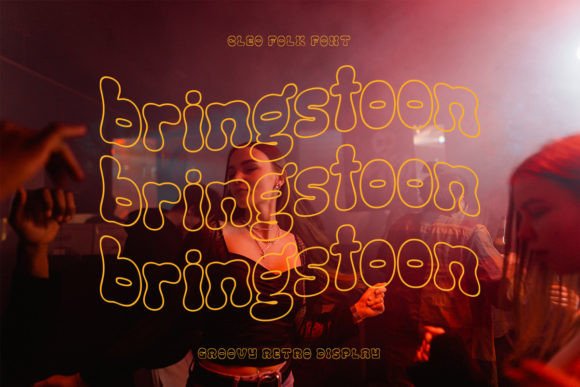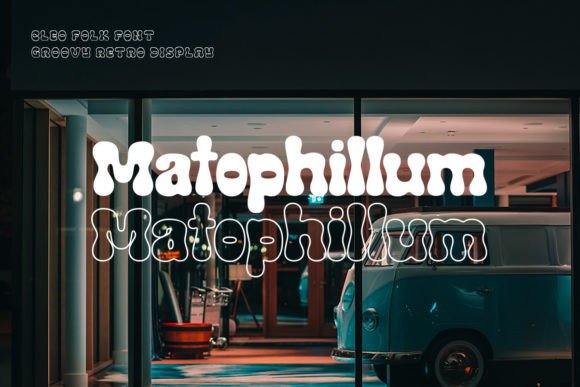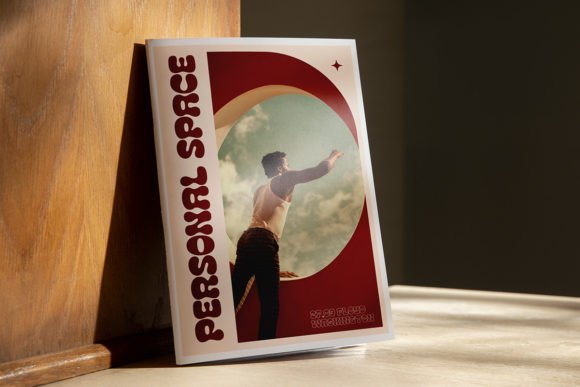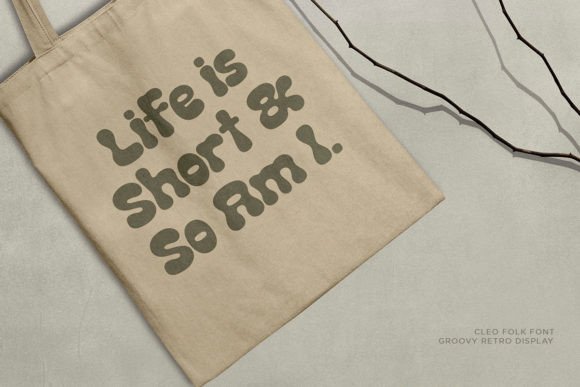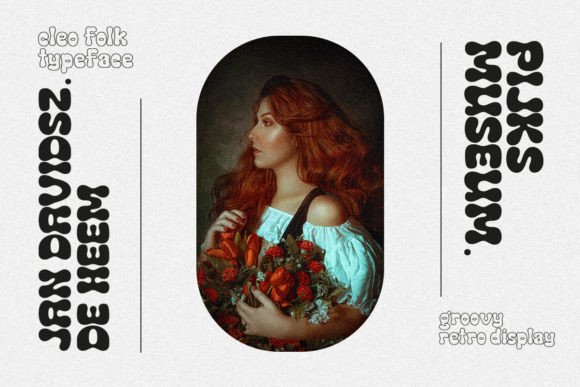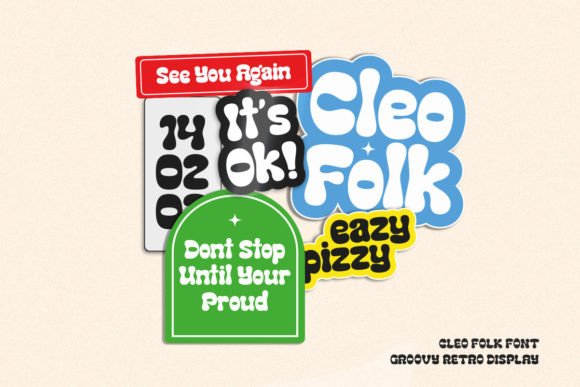
Cleo Folk Font: The Groovy Retro Display Font You Need for Your Designs
Are you tired of using the same old fonts in your designs? Do you want to add a touch of uniqueness and personality to your projects? Look no further than Cleo Folk, a groovy retro display font that’s perfect for designers and crafters alike. In this article, we’ll dive into the world of Cleo Folk and explore its features, benefits, and uses.
What is Cleo Folk Font?
Cleo Folk is a display font that embodies the spirit of the retro era. Its natural and unique style makes it incredibly fitting for a wide range of designs, from vintage-inspired posters to modern digital graphics. The font’s groovy vibe is sure to add a touch of personality to any project, making it stand out from the crowd.
Key Features of Cleo Folk Font
- Unique and Quirky Style: Cleo Folk’s distinctive style is sure to grab attention and add a touch of whimsy to your designs.
- Retro-Inspired: The font’s retro vibe makes it perfect for designs that require a vintage or nostalgic feel.
- Natural and Earthy: Cleo Folk’s natural style makes it suitable for designs that require an earthy or organic feel.
- Highly Versatile: The font’s versatility makes it suitable for a wide range of designs, from digital graphics to print materials.
Benefits of Using Cleo Folk Font
So, why should you choose Cleo Folk for your designs? Here are just a few benefits of using this amazing font:
- Adds Personality to Your Designs: Cleo Folk’s unique style is sure to add a touch of personality to your designs, making them stand out from the crowd.
- Perfect for Creative Projects: The font’s quirky style makes it perfect for creative projects, such as posters, flyers, and brochures.
- Easy to Read: Despite its unique style, Cleo Folk is easy to read, making it suitable for designs that require a clear and concise message.
- Customizable: The font’s versatility makes it easy to customize, allowing you to experiment with different colors, textures, and styles.
Uses of Cleo Folk Font
So, what can you use Cleo Folk for? The possibilities are endless! Here are just a few ideas to get you started:
- Posters and Flyers: Cleo Folk is perfect for creating eye-catching posters and flyers that require a unique and attention-grabbing style.
- Digital Graphics: The font’s versatility makes it suitable for digital graphics, such as social media posts, blog headers, and website titles.
- Branding and Packaging: Cleo Folk’s quirky style makes it perfect for branding and packaging designs that require a unique and memorable style.
- Crafting and DIY Projects: The font’s natural and earthy style makes it suitable for crafting and DIY projects, such as handmade cards, gift tags, and scrapbooking.
Tips for Using Cleo Folk Font
Here are a few tips for using Cleo Folk in your designs:
- Experiment with Colors and Textures: Cleo Folk’s versatility makes it easy to experiment with different colors and textures, so don’t be afraid to try new things!
- Pair with Other Fonts: The font’s unique style makes it perfect for pairing with other fonts, creating a unique and visually appealing combination.
- Use for Headlines and Titles: Cleo Folk’s bold and attention-grabbing style makes it perfect for headlines and titles, adding a touch of personality to your designs.
| Font Name | Cleo Folk Font |
| Author | Pentagonistudio |
In conclusion, Cleo Folk is a groovy retro display font that’s perfect for designers and crafters alike. Its unique and quirky style makes it incredibly fitting for a wide range of designs, from vintage-inspired posters to modern digital graphics. With its natural and earthy style, Cleo Folk is sure to add a touch of personality to any project, making it stand out from the crowd. So why not give it a try and see what amazing designs you can create?